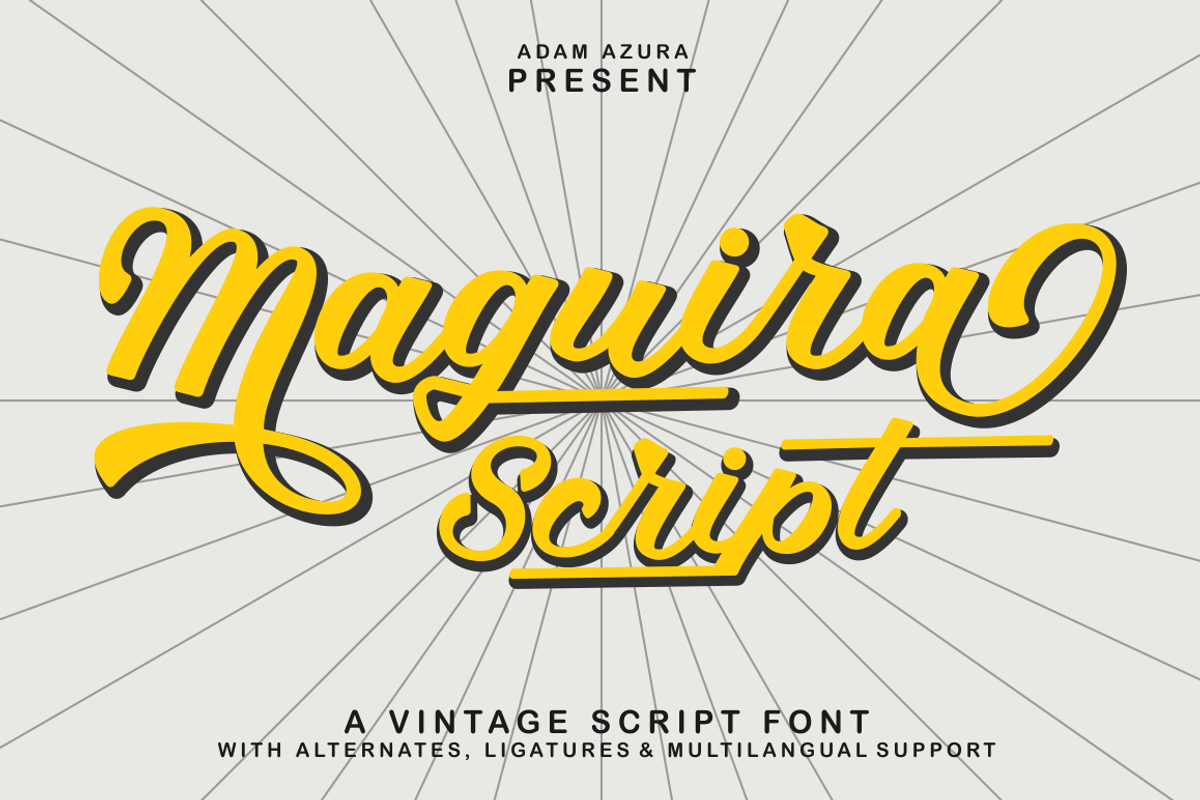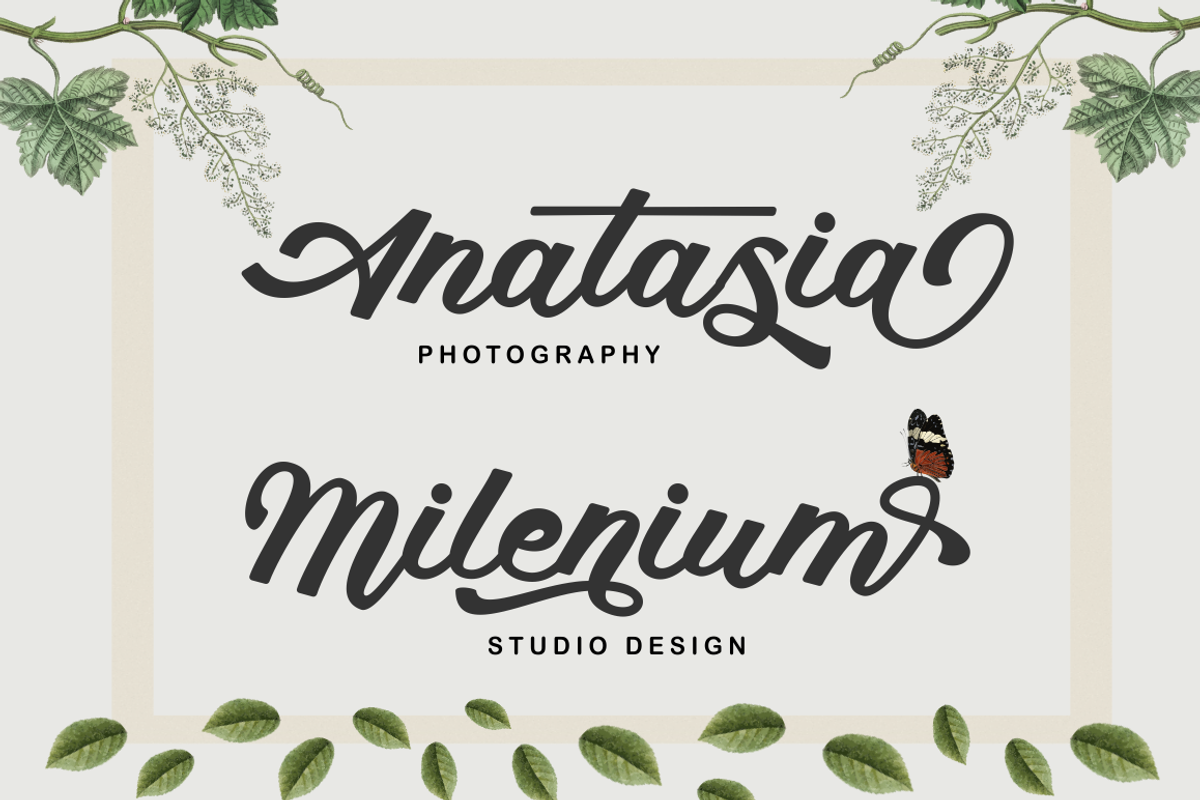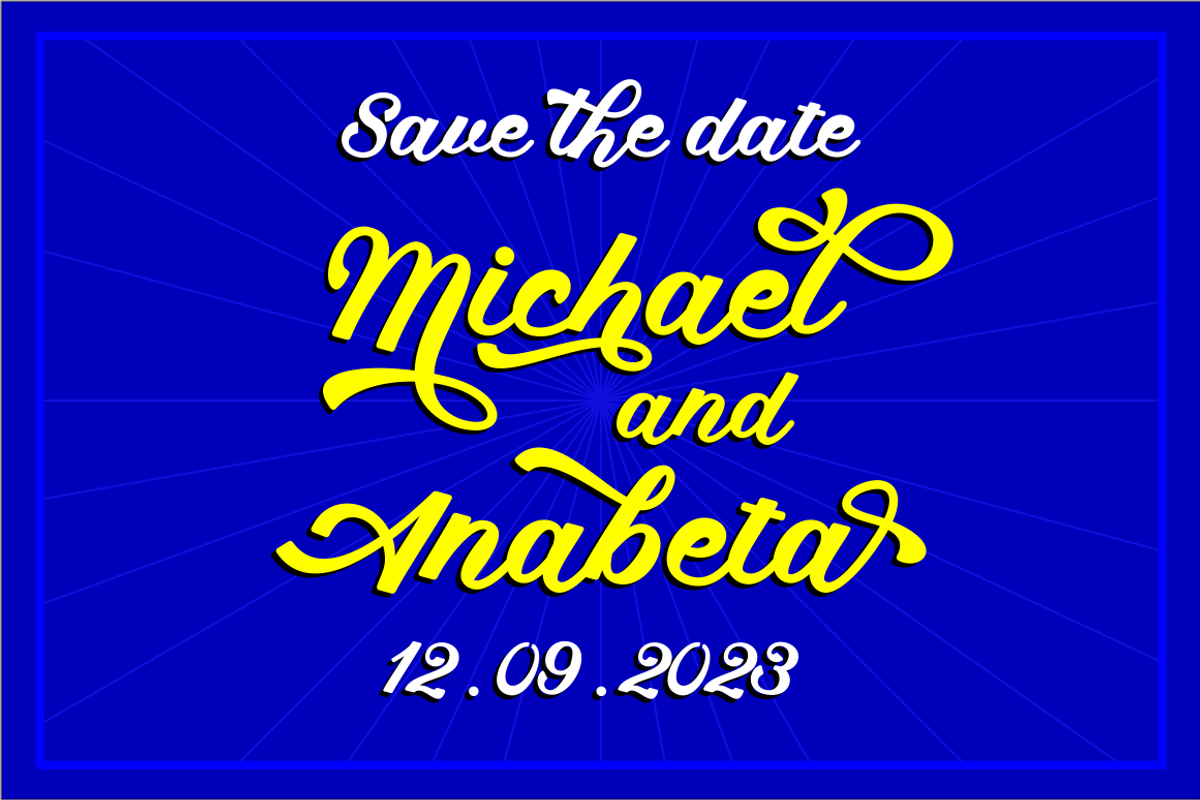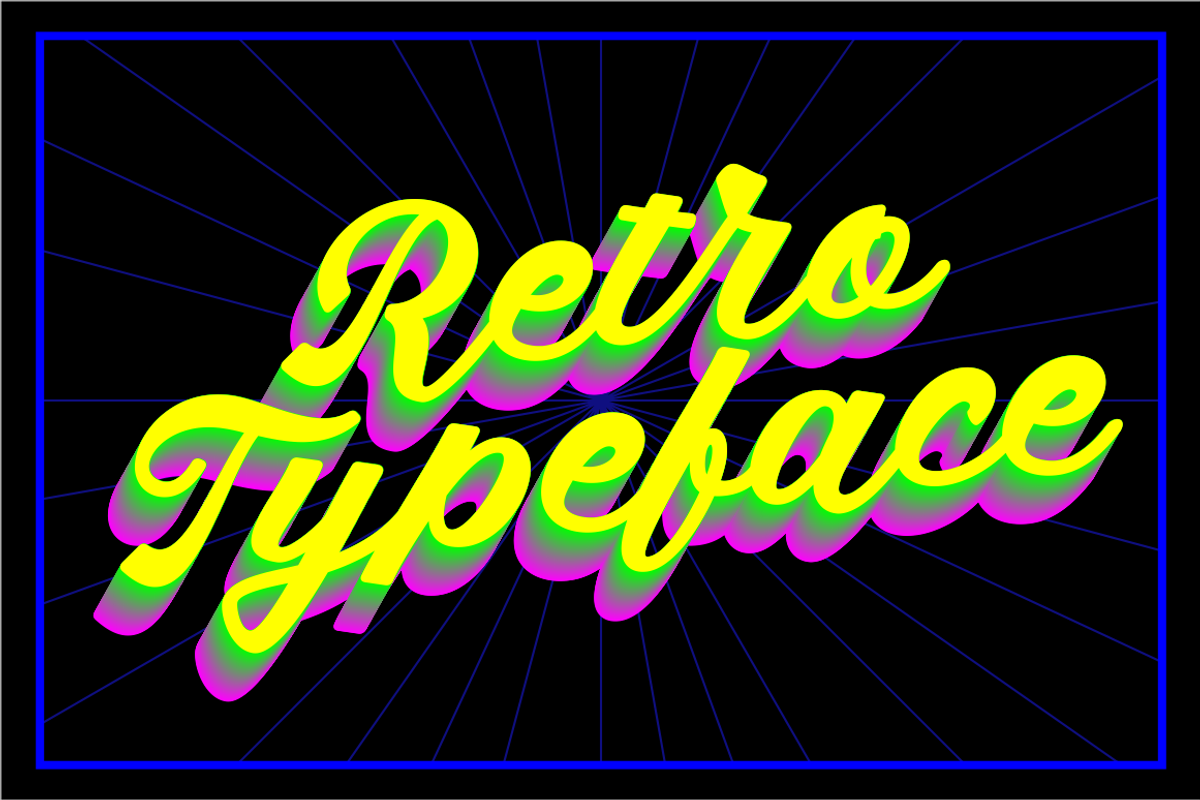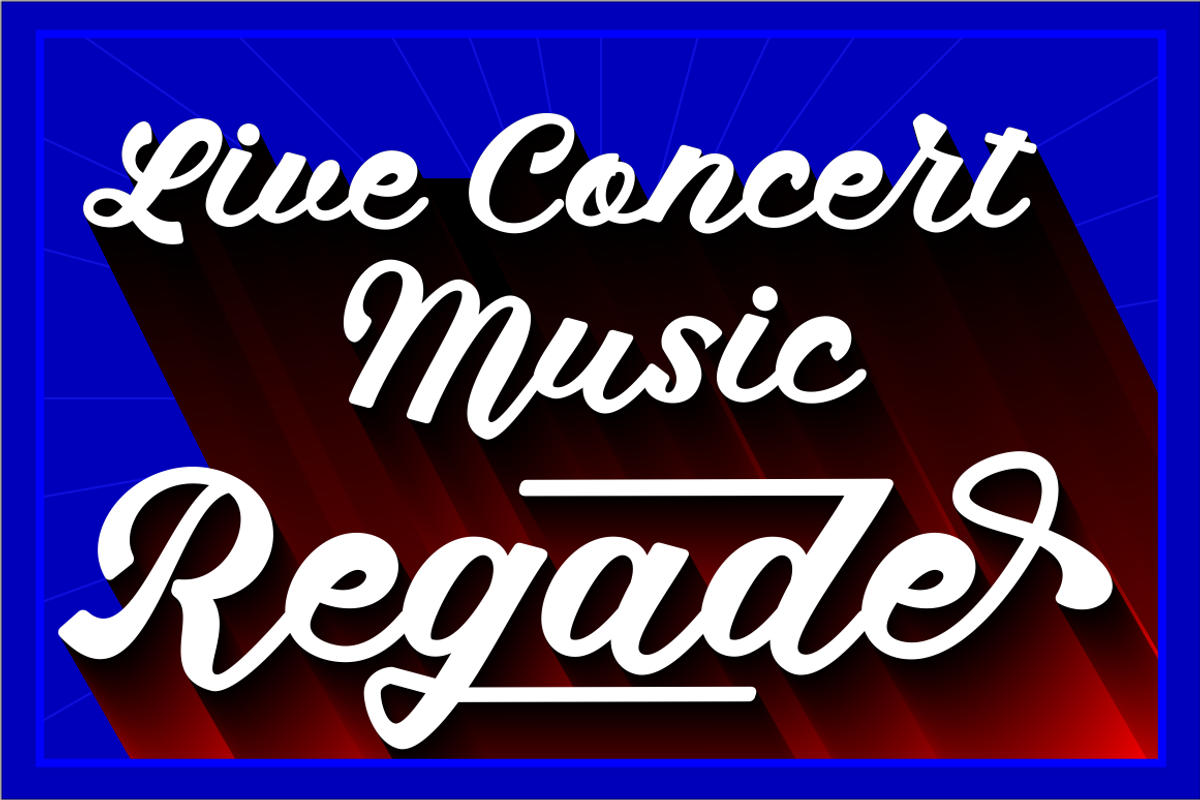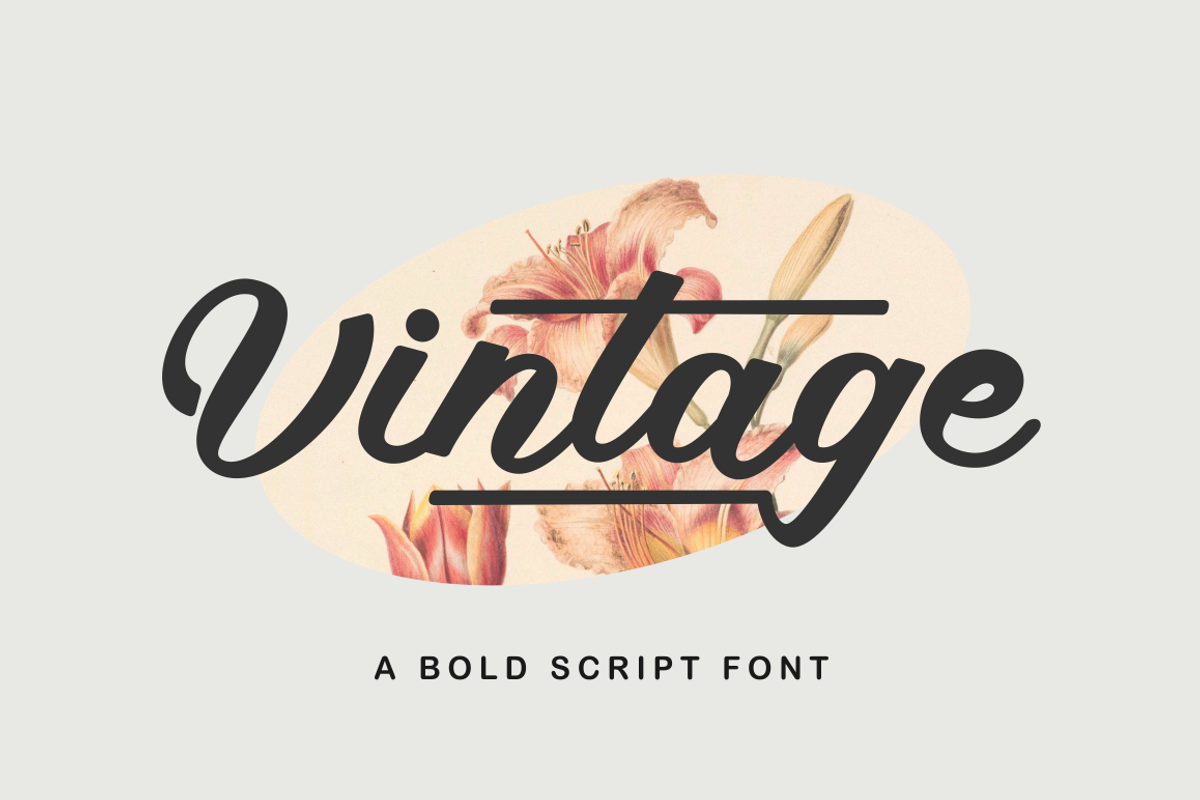
Maguira Script
Maguera Script Inspired by Retro style and combination with Hand Lettering style. Maguera Script have many alternative swash & ligatures character and have opentype features like a stylistic alternatice, stylistic set, ligature and swash so you can mix and match like a you want.
Maguera Script came with open type features such stylistic alternates, stylistic sets & ligatures good for logotype, poster, badge, book cover, tshirt design,handwritten quotes, product packaging, header, poster, merchandise, social media & greeting cards.